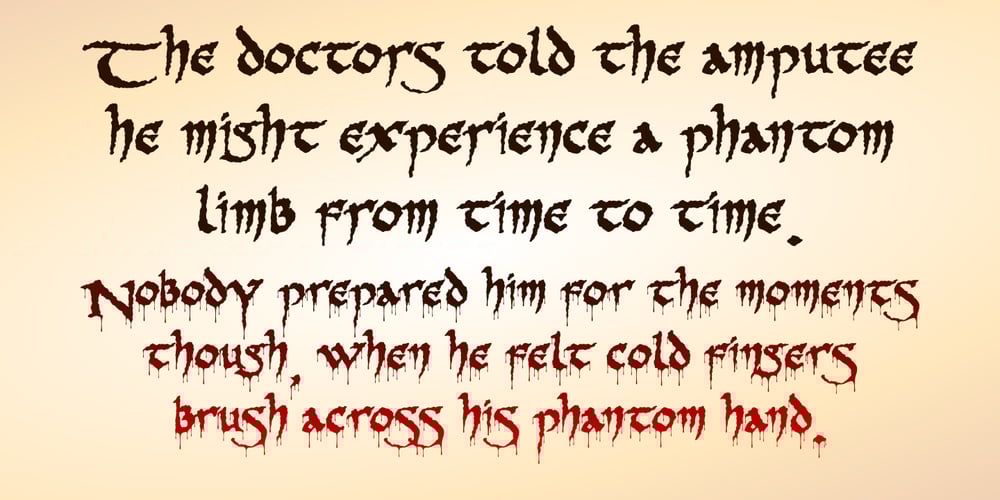
PR Cauldron
PR Cauldron font
PR Cauldron Font Family was designed by Peter Rempel and published by PR Fonts. PR Cauldron contains 2 styles and family package options. Whether your subject is scary, or just ancient, this font can help get the right feeling across. PR-Cauldron has capitals based on Uncials, and lowercase based on Celtic Minuscule. “Potion” has a rough finish, and “Curse” has the same letters dripping with gore, suitable for Halloween. Letters are size matched in both fonts, so you can put in as much, or as little messiness as you like. Combines well with: PR Bramble Wood 1, PR Bramble Wood 2, PR Hallow Doodles 01, PR Hallow Doodles 02, PR Swirlies 01, PR Swirlies 05